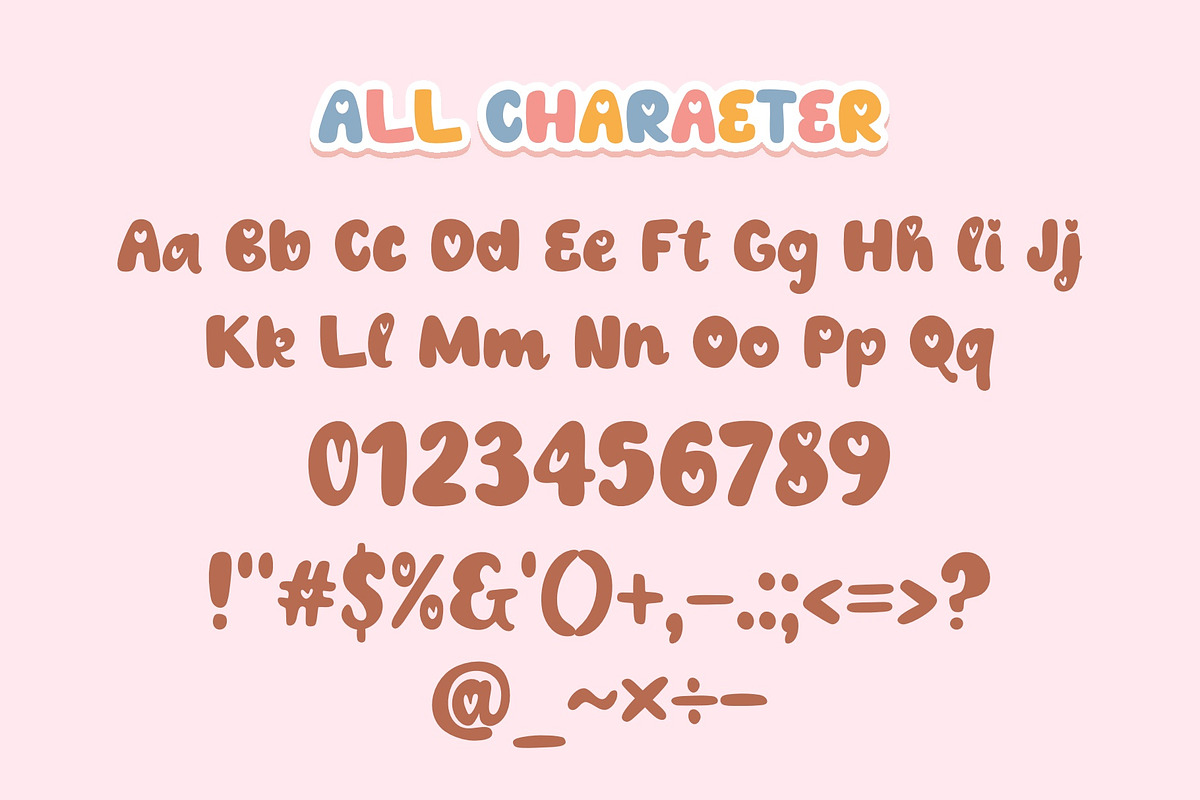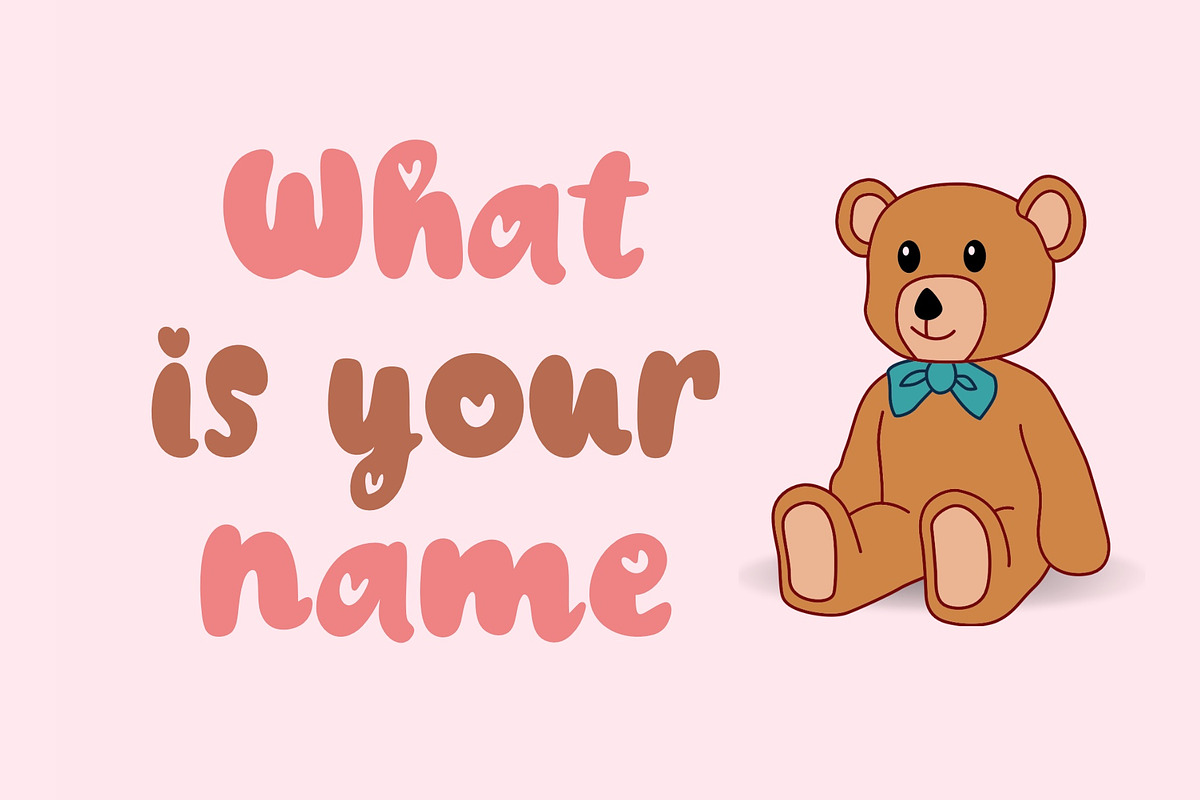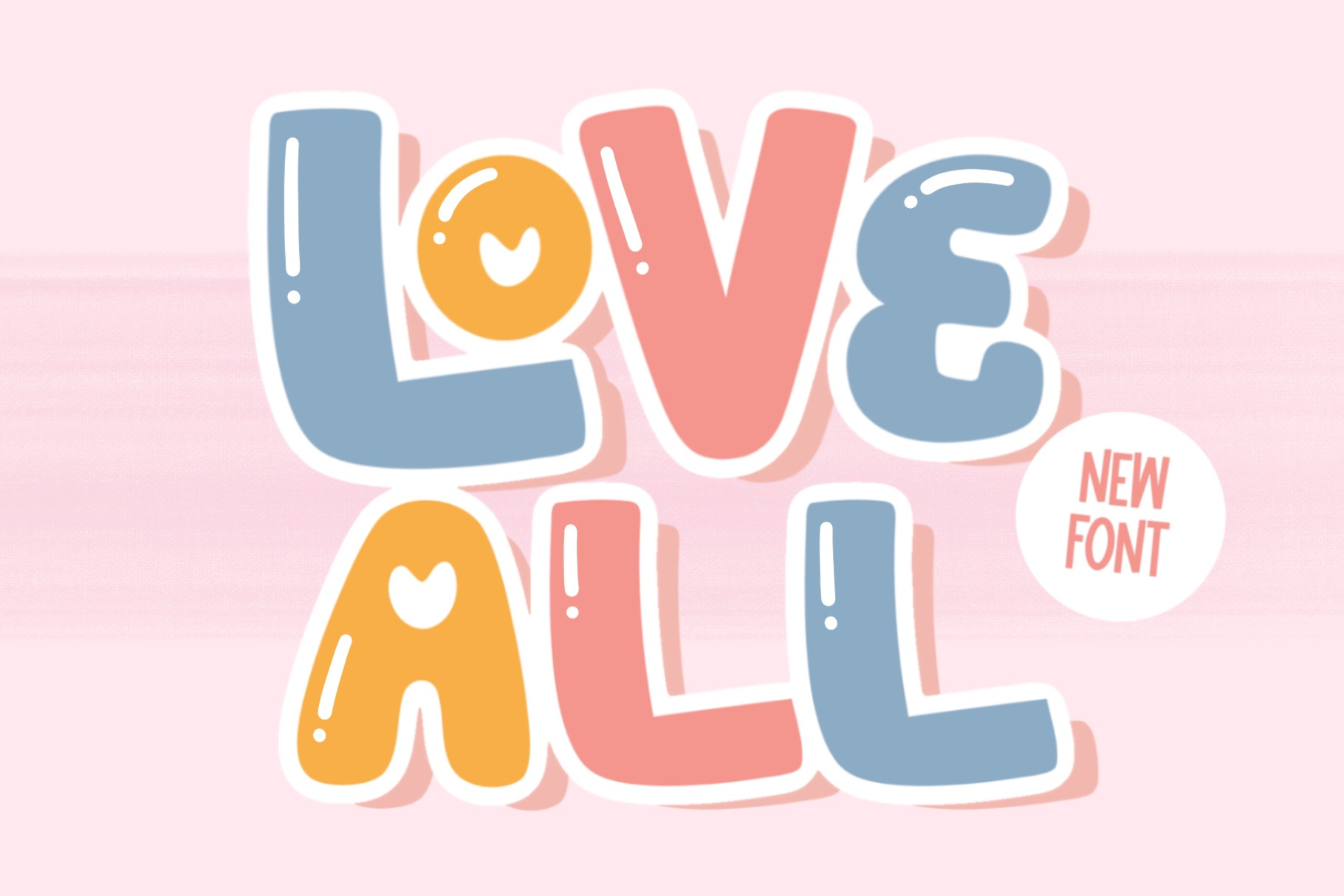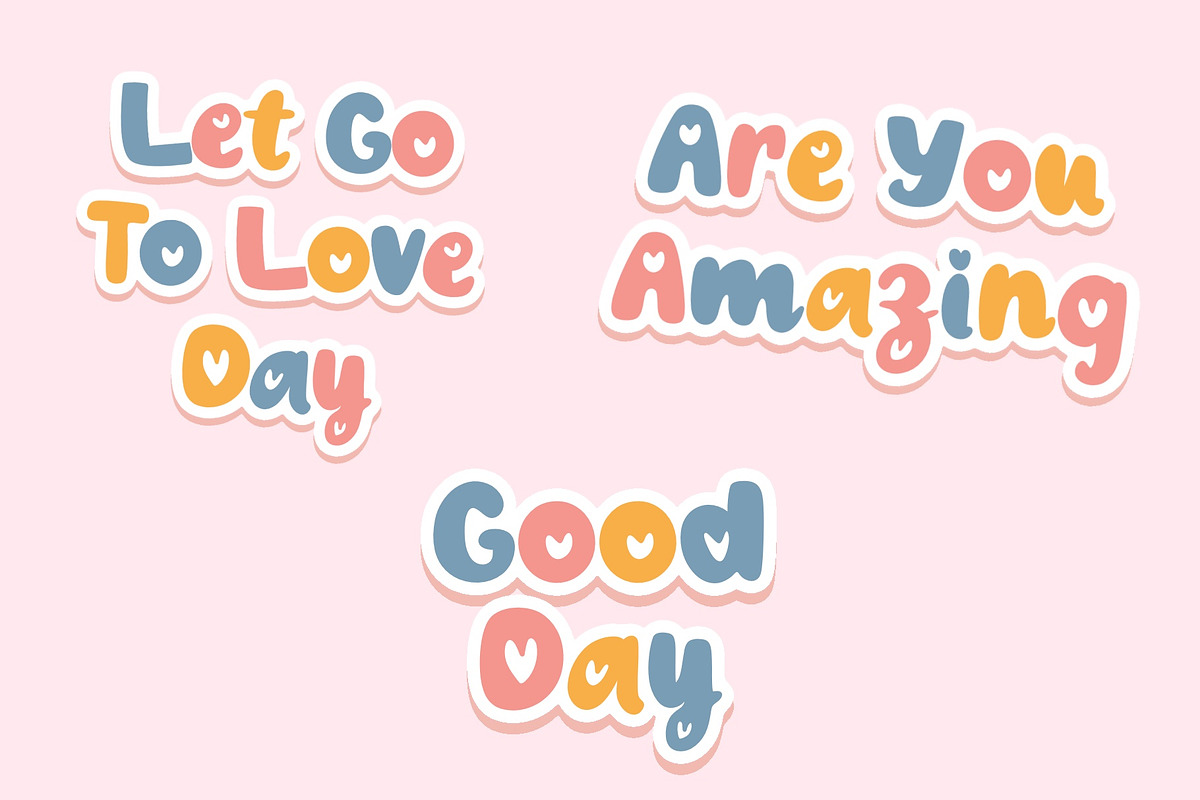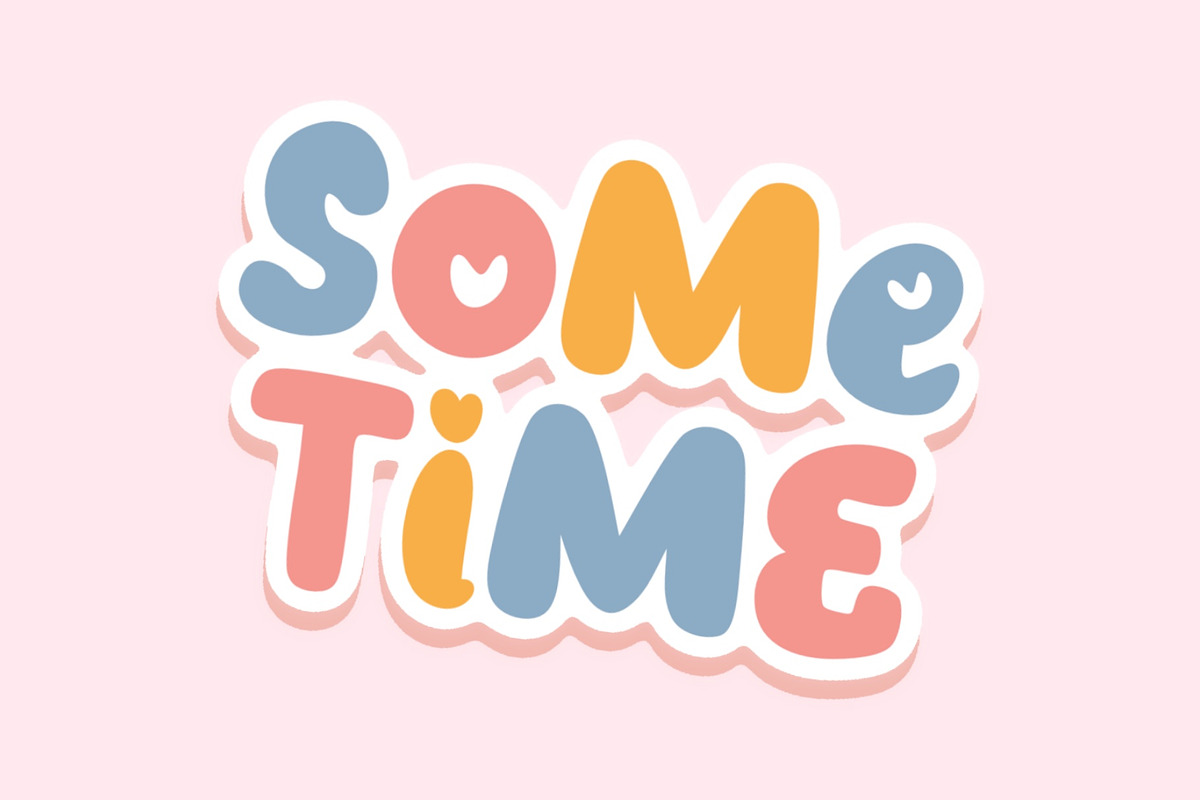
Love All Font
Love All Font, the font that spreads love and positivity in every design! With its graceful curves and heartwarming details, this typeface is perfect for adding a touch of affection to your projects. Whether you're designing wedding invitations, love notes, or heartfelt greeting cards, Love All Font will infuse your creations with love and warmth. Its versatile style allows it to be used in various design styles, from elegant and romantic to cute and charming.